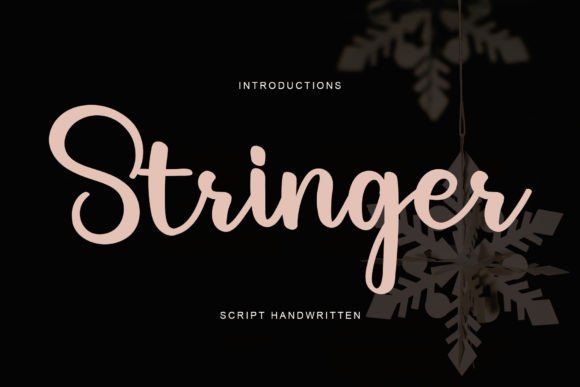
Introducing Stringer Font, the enchanting script font that will transform your creative projects into captivating masterpieces. Designed with meticulous attention to detail, Stringer exudes a charm that will make your words dance off the page. Crafted by the talented artists at YanStudio, this font is a symphony of elegance and sophistication, perfectly suited for a wide range of design endeavors.
Step into a world of limitless possibilities with Stringer. Its graceful curves and delicate strokes will add a touch of timeless beauty to your logos, branding initiatives, labels, photography, watermarks, and special event invitations. Allow Stringer to be your muse as you embark on a creative journey, creating designs that resonate with your audience and leave a lasting impression.
With Stringer, you hold the power to evoke emotions and create connections that transcend the ordinary. It's the perfect font for capturing the essence of special occasions, transforming them into cherished memories immortalized in print. Engage your audience, touch their hearts, and leave them spellbound with the captivating allure of Stringer.
Don't settle for mundane fonts that blend into the background. Embrace Stringer and unleash your creativity. It's a font that speaks volumes, a font that commands attention, a font that will elevate your projects to new heights of brilliance.